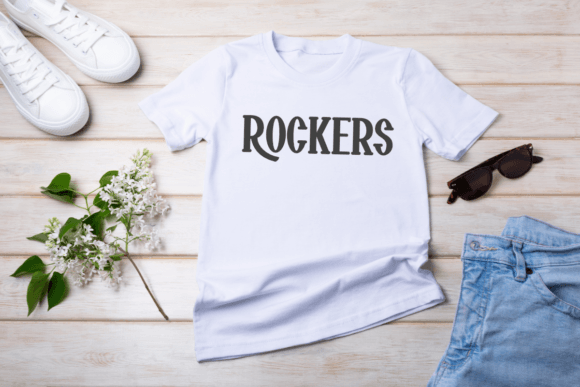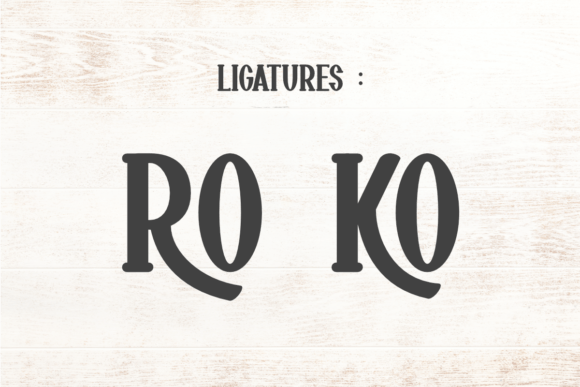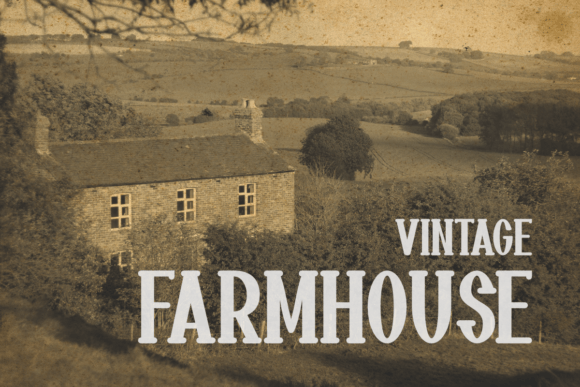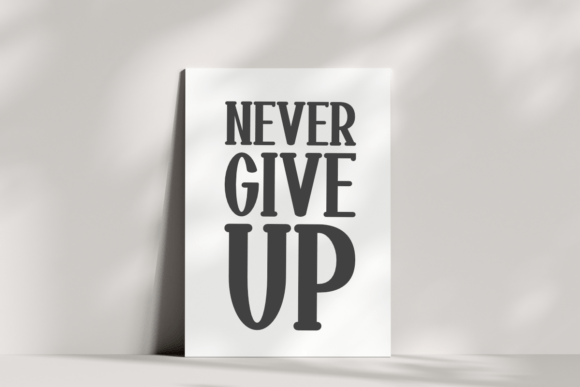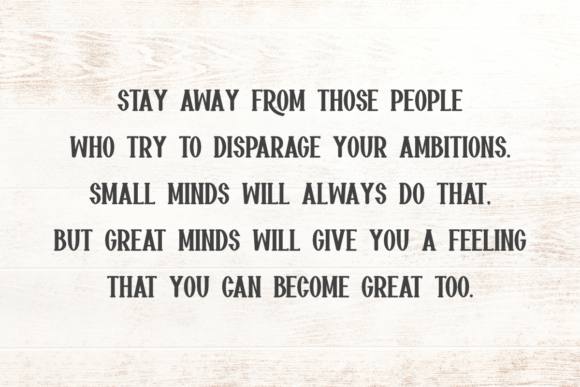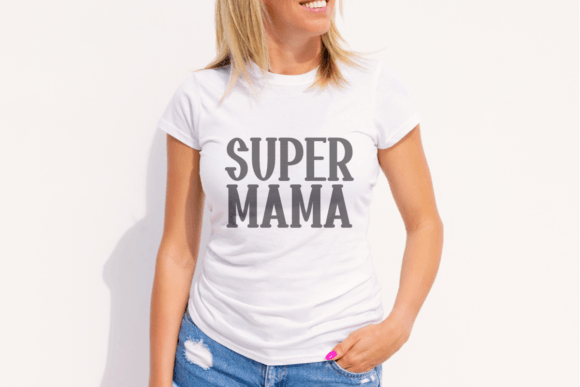
Introducing Graduation Varsity Font: Elevate Your Designs with a Bold and Charming Slab Serif
Are you a designer or crafter looking for a font that can add a touch of personality to your creations? Look no further than Graduation Varsity Font, a bold and charming slab serif font that’s perfect for a wide range of design projects. In this article, we’ll take a closer look at the features and benefits of Graduation Varsity, and explore how it can enhance your font library.
What is Graduation Varsity Font?
Graduation Varsity Font is a slab serif font that’s designed to make a statement. With its bold and charming aesthetic, this font is perfect for designers who want to add a touch of personality to their creations. Whether you’re working on a logo, a poster, a website, or any other design project, Graduation Varsity is a versatile font that can be used in a variety of contexts.
Key Features of Graduation Varsity Font
So what sets Graduation Varsity Font apart from other fonts? Here are some of its key features:
- Bold and charming aesthetic: Graduation Varsity Font has a bold and charming aesthetic that’s perfect for making a statement.
- Slab serif design: The font features a slab serif design, which gives it a sturdy and dependable feel.
- Versatile: Graduation Varsity Font can be used in a variety of design projects, from logos and posters to websites and more.
- Easy to read: Despite its bold aesthetic, Graduation Varsity Font is easy to read, making it perfect for body text and headlines.
Benefits of Using Graduation Varsity Font
So why should you consider adding Graduation Varsity Font to your font library? Here are some of the benefits of using this font:
- Enhance your designs: Graduation Varsity Font can add a touch of personality to your designs, making them more engaging and memorable.
- Stand out from the crowd: With its bold and charming aesthetic, Graduation Varsity Font can help your designs stand out from the crowd.
- Increase legibility: The font’s slab serif design and easy-to-read aesthetic make it perfect for body text and headlines.
- Save time: With Graduation Varsity Font, you can create professional-looking designs in no time, saving you time and effort.
How to Use Graduation Varsity Font
So how can you use Graduation Varsity Font in your designs? Here are some ideas:
- Logos and branding: Use Graduation Varsity Font to create a bold and memorable logo that reflects your brand’s personality.
- Posters and flyers: The font’s bold aesthetic makes it perfect for posters and flyers that need to grab attention.
- Websites and blogs: Use Graduation Varsity Font to add a touch of personality to your website or blog’s typography.
- Social media graphics: The font’s easy-to-read aesthetic makes it perfect for social media graphics, such as Facebook posts and Instagram stories.
In conclusion, Graduation Varsity Font is a bold and charming slab serif font that’s perfect for designers and crafters who want to add a touch of personality to their creations. With its versatile design, easy-to-read aesthetic, and bold aesthetic, this font is sure to enhance any design project. Whether you’re working on a logo, a poster, a website, or any other design project, Graduation Varsity Font is a wonderful asset to your font library.
So why not give Graduation Varsity Font a try? With its many benefits and uses, it’s sure to become a go-to font in your design arsenal.